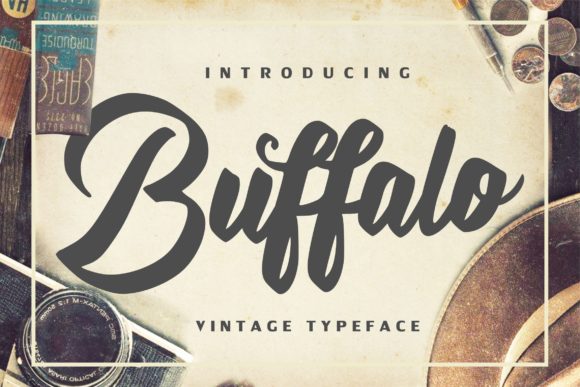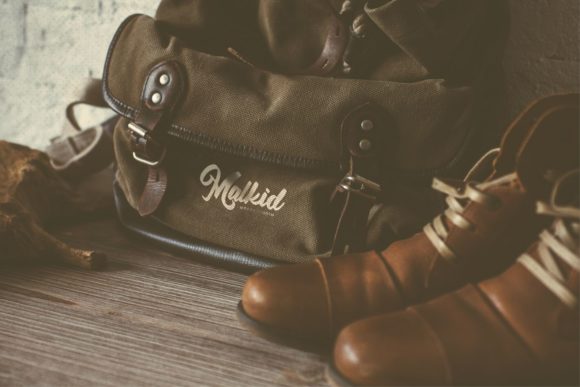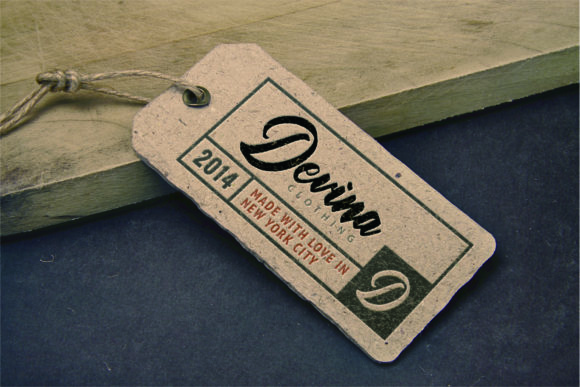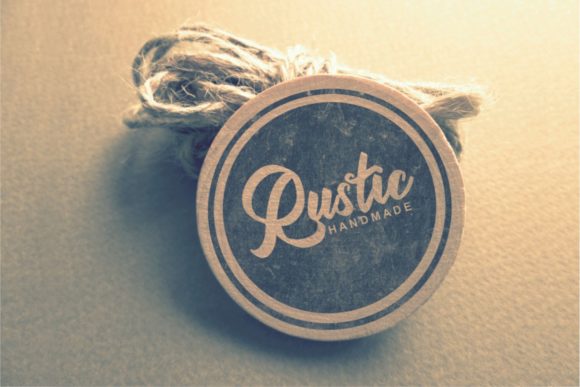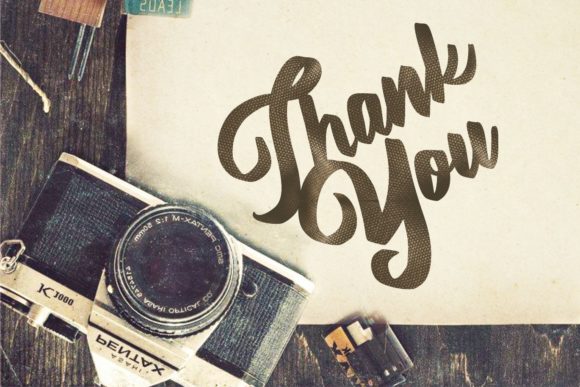
HomeScript FontsBuffalo Font Script Fonts Buffalo Font FacebookXPinterestWhatsApp Buffalo Font Poster 2 Buffalo Font Poster 3 Buffalo Font Poster 4 Buffalo Font Poster 5 About Buffalo Font Buffalo is a beautiful vintage script typeface with unique character. Get inspired by its old-school coolness! DOWNLOAD NOW People also explored Pinky Promise Font Raelyn Font Sallvacia Font Dunks Font Spring Onion Font Makesta Font Delight Lettering Font Comic Boom Element Font Molend Font 358 0 TagsBuffalo Font Previous articleQuaked FontNext articleNetherlande Font LEAVE A REPLY Cancel reply Comment: Please enter your comment! Name:* Please enter your name here Email:* You have entered an incorrect email address! Please enter your email address here Website: Save my name, email, and website in this browser for the next time I comment. Personal Use Free Mallvirra Personal Use Free Read more about this font Eaglese Personal Use Free Read more about this font Catandra Script Personal Use Free Read more about this font Nulshock Bold Personal Use Free Read more about this font BLOG Free vs Paid Fonts: Why Investing in Premium Fonts Is Worth It Free vs Paid Fonts: Why Premium Fonts Are Worth It in 2025 The debate of free vs paid fonts continues in the design world. While... How to Install and Use Fonts on Windows, macOS, and Web Projects Transform Your Website: Elevate Your Typography with 7 Best Web Font Generators Best Fonts for YouTube Videos: Make Your Thumbnails Stand Out